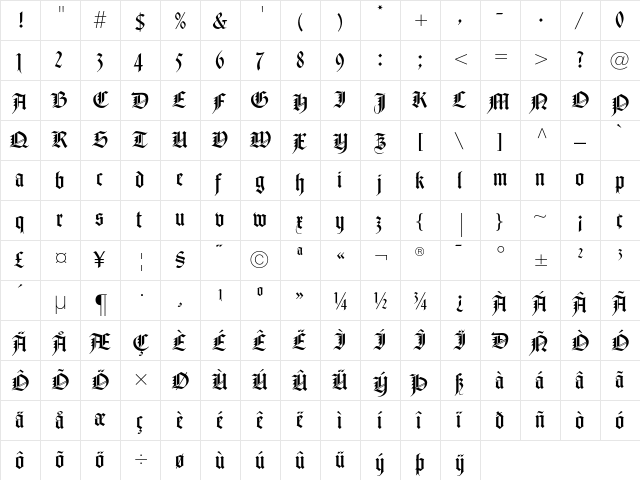
Notre Dame Roman
Design Context for Notre Dame Typeface
Notre Dame is a composed and adaptable typeface that performs quietly and consistently across a wide range of design contexts.